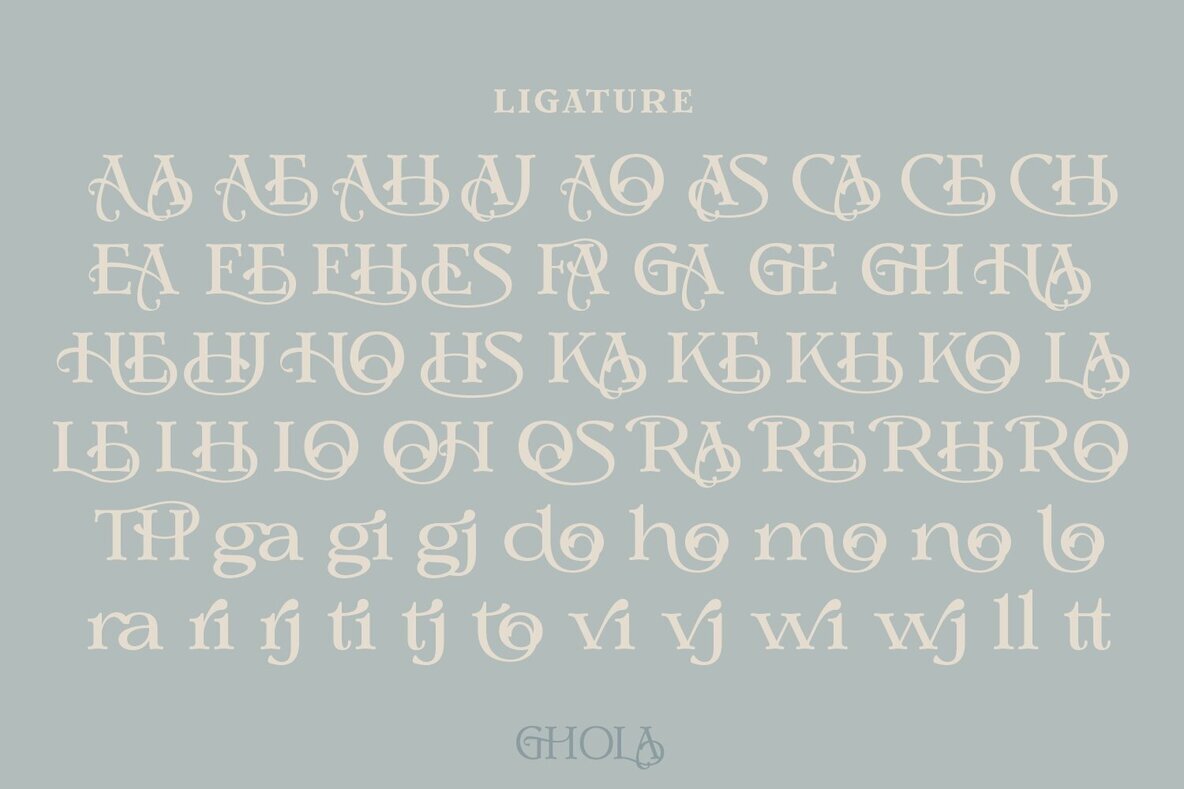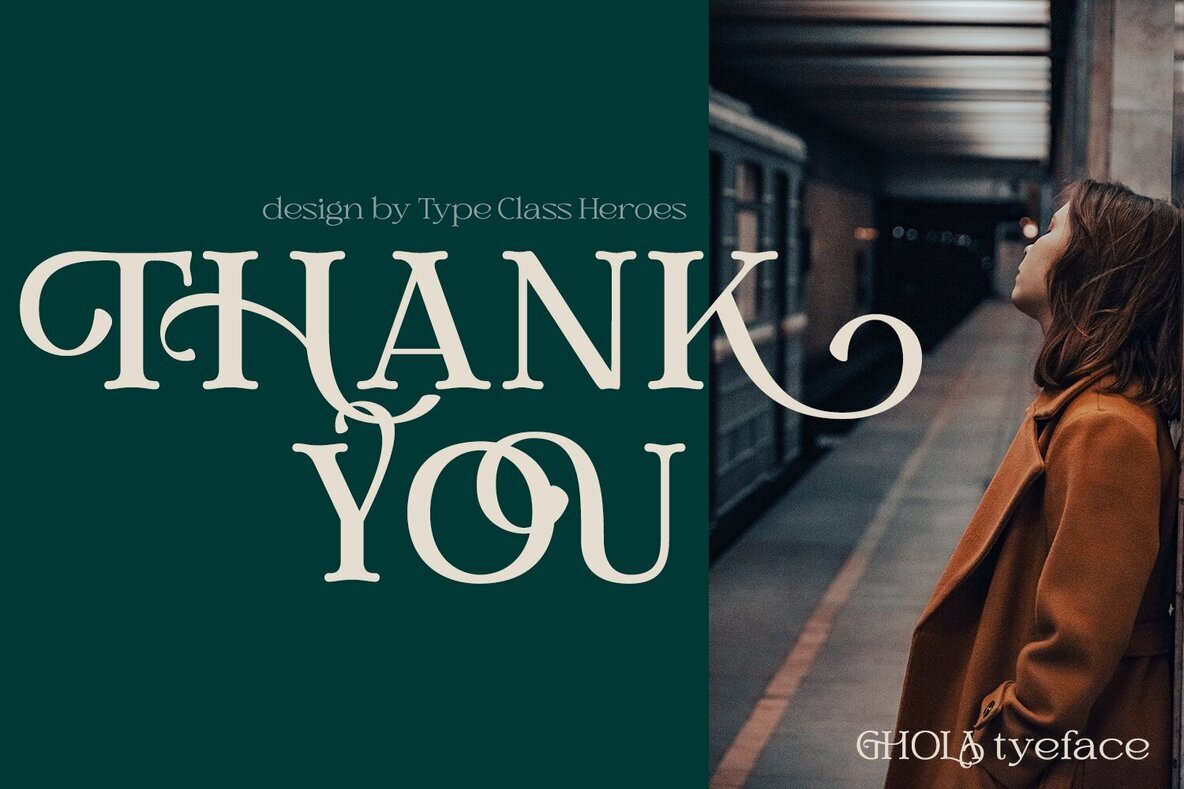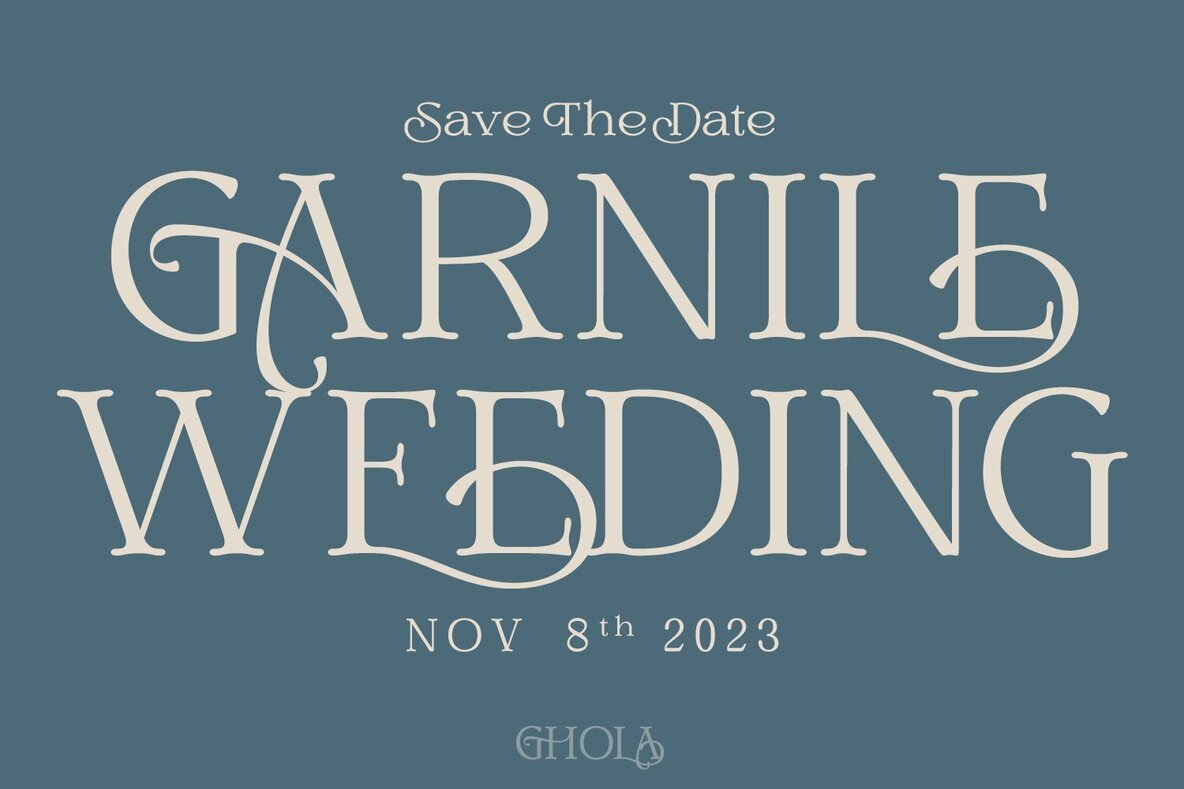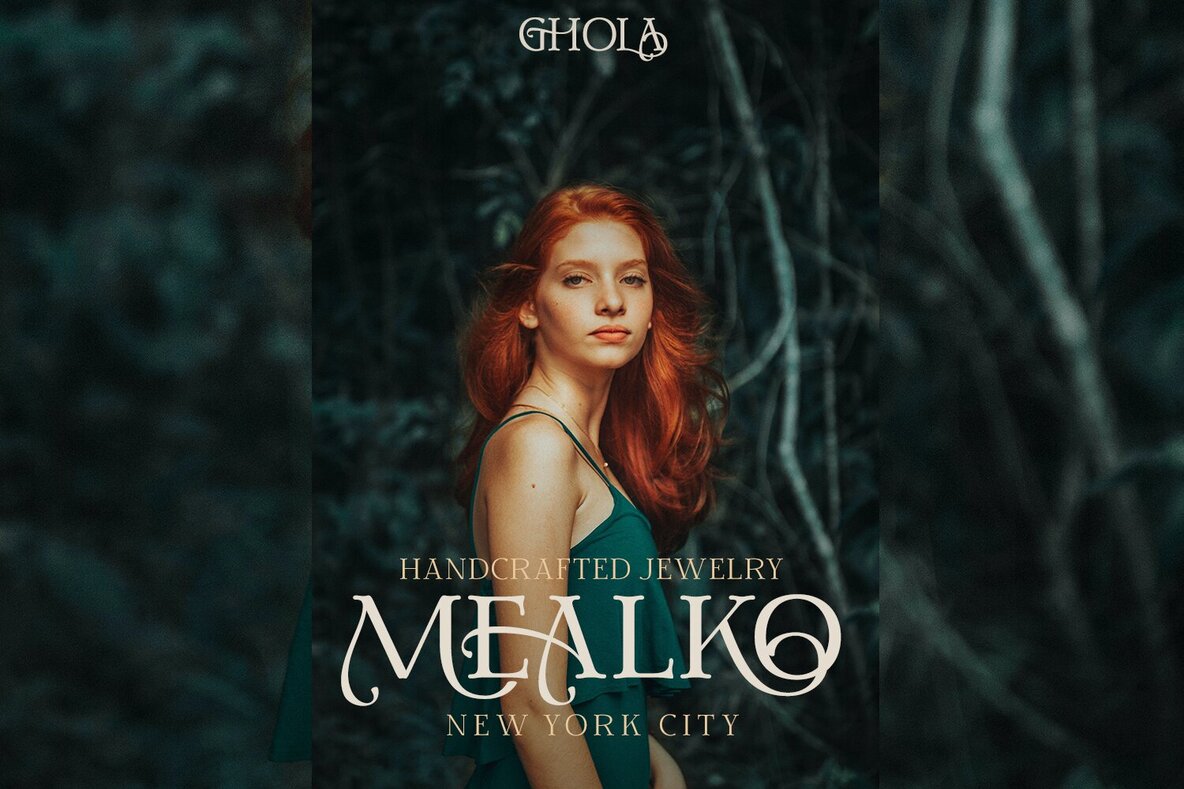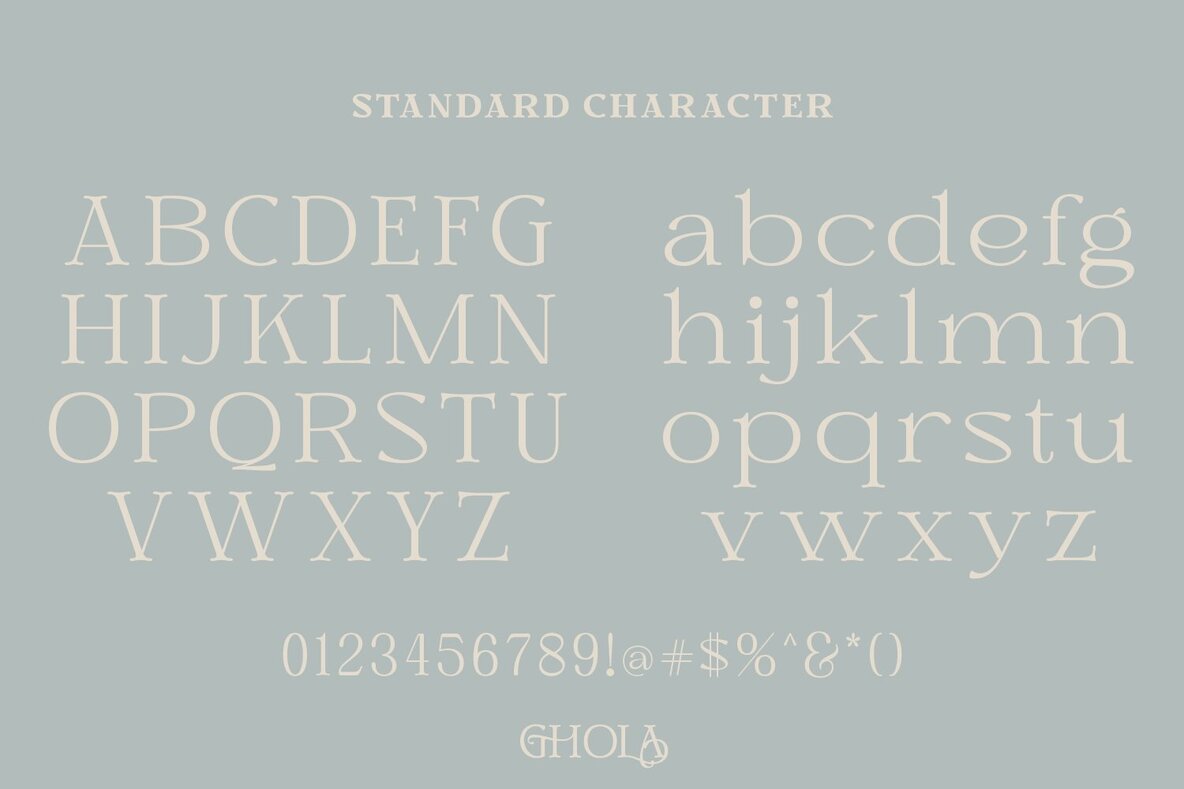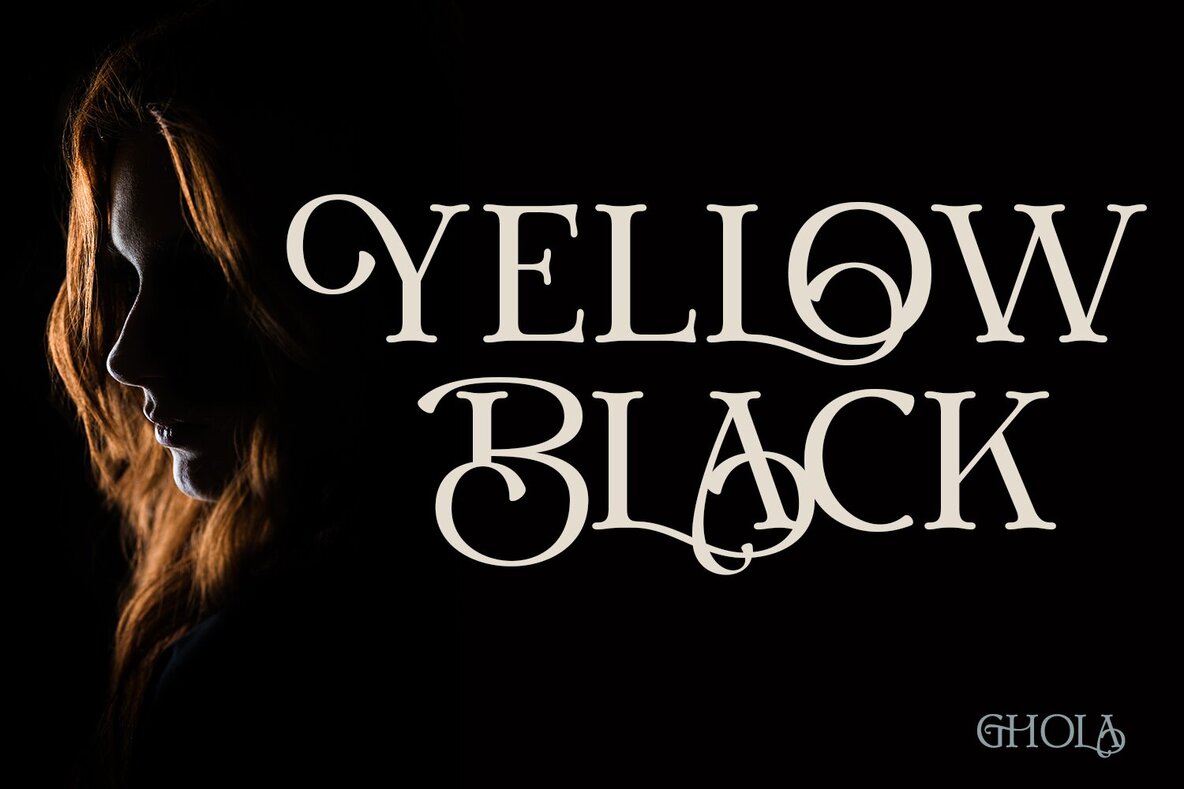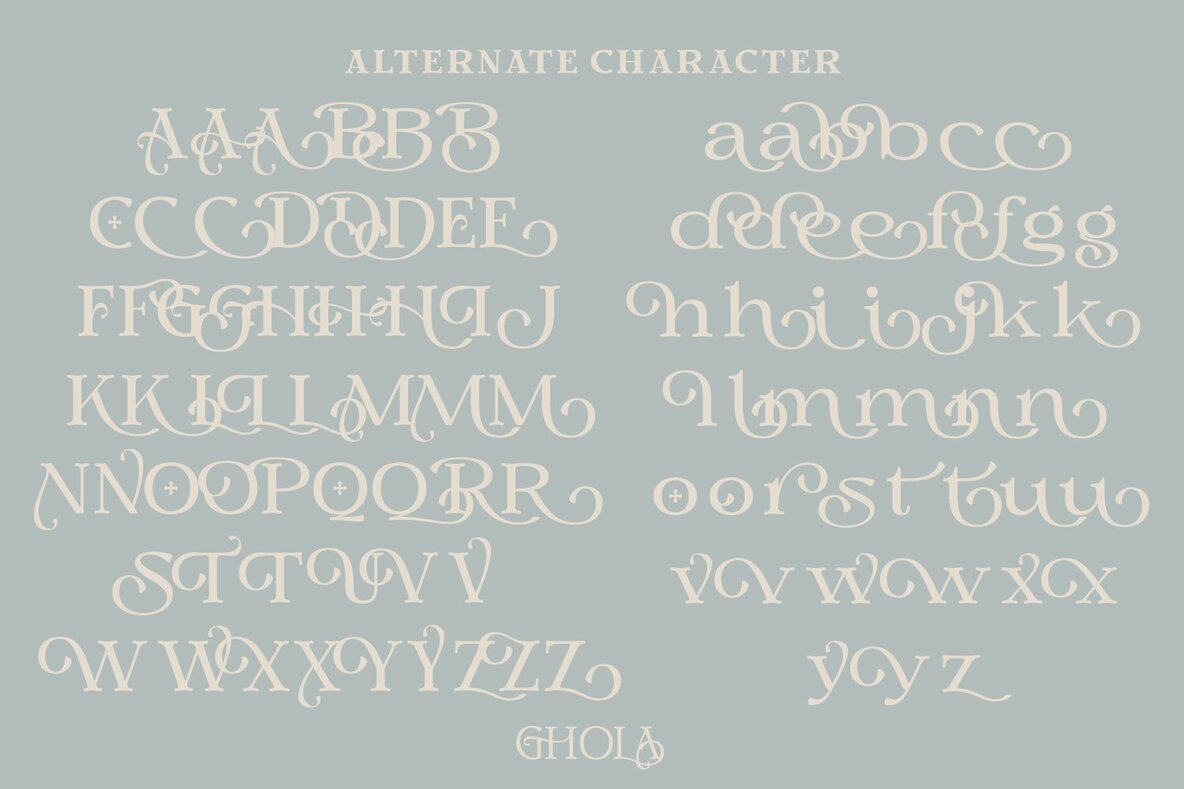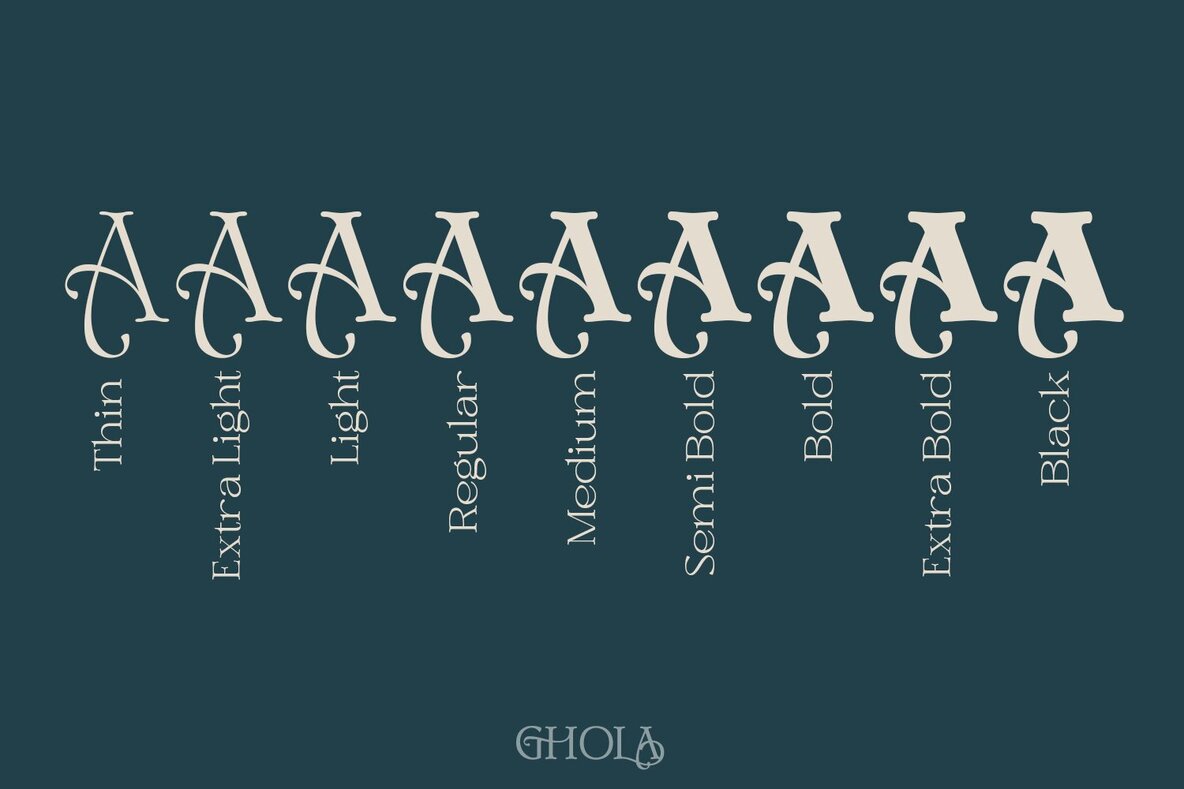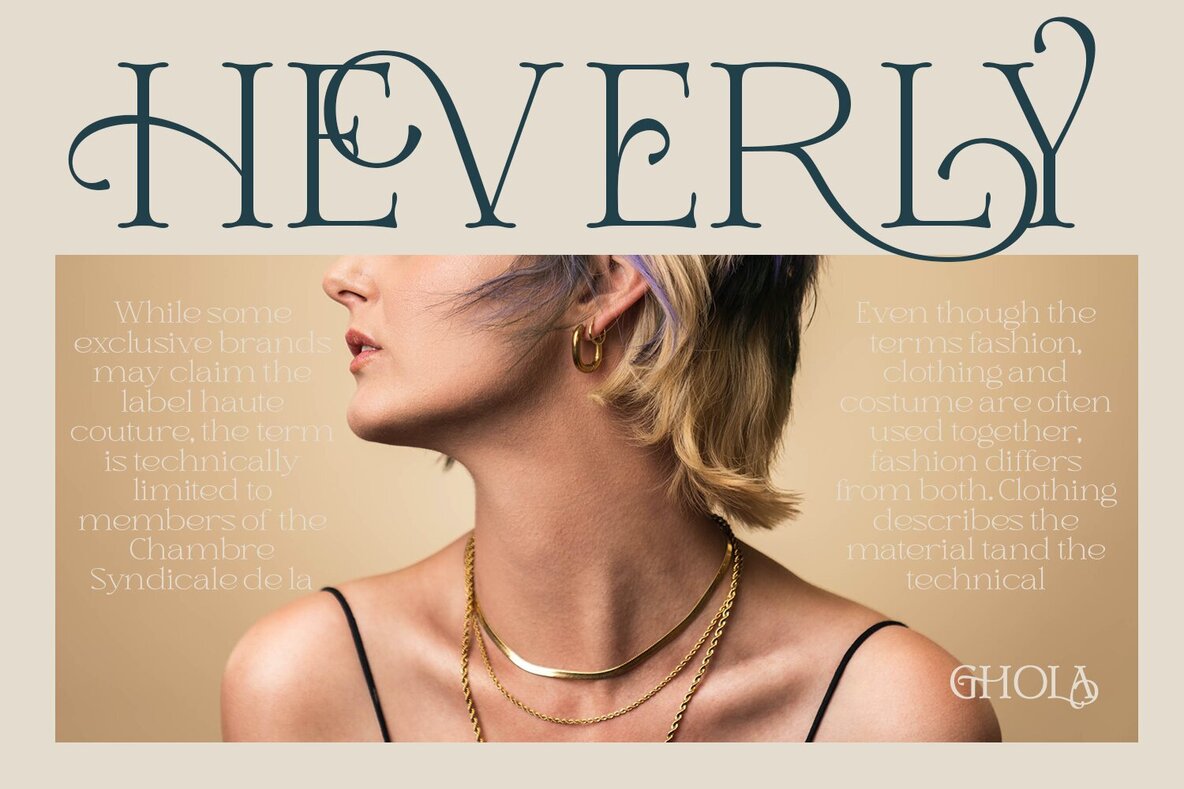
Hello I'm really excited to introduce Ghola, masterfully designed to become a stylish and elegant, this font has the potential to bring each of your creative ideas to the highest level. Combine with ligatures and special alternative glyphs so you can create a lots with layouts and compositions. Ghola brings a touch of luxury and bespoke custom typography to logos, websites, social media quotes, wedding branding, and more.